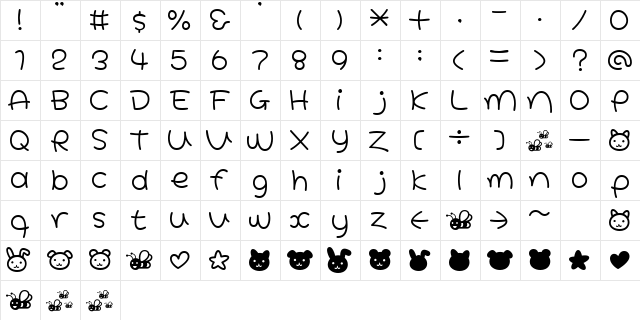
HoneyLight Regular
Design Context for HoneyLight Typeface
HoneyLight is a composed and adaptable typeface that performs quietly and consistently across a wide range of design contexts. Its slender proportions lend an understated elegance to any composition.
Pro Tip: Use HoneyLight in both headline and body roles to test its range before committing to a single application.